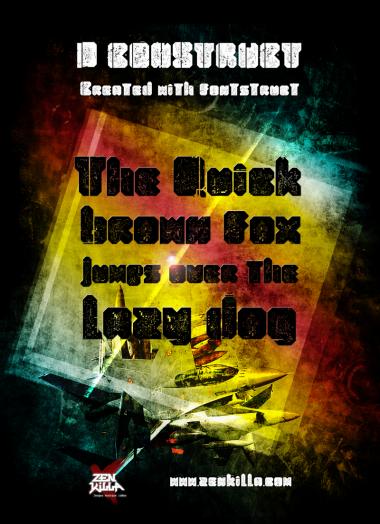
Hey there. It's been a moment that i think to create a destroy typeface with fontstruct. That's done with the Dconstruct typeface. Hope you'll like it. Zen
If I'm right, you've just published the first fontstruction in grunge style. Looks very dirty, worn, and tattered. It was only a matter of time before FS conquered this urban domain, and you are the conqueror. Nice demo pic. Congratulations. 10/10
While not being even close to the first grunge font created with fontstruct, this is impressive work nonetheless. Who cares about being “first” anyway! In my eyes, better to be unique while staying true to your heart.
The gradation you achieved – especially apparent at small sizes – has a convincing rubber stamp quality. To be honest I have little affinity for the immense and visually tiring pantheon of grunge fonts created in the wake of the whole digital revolution in typography. But to manually and successfully construct a graded texture of controlled chaos with fontstruct is a trick and a half. It’s great that you and other here find and share joy in it. : )
You might want to widen the space character for increased legibility straight out of the box.
thanks you very much for those comments. In facts it's taking time to create the chaos in the typeface and to make it different for each letter. But i'm glad of the result.
a great technical achievement and work of art. fascinating to look at pixel size. looks almost stamped or something. i would also say more for the character space - try a little less than one of your lc glyphs - the text right now kind of runs together. but this is outstanding :)
The 'lazy dog' will have to watch out for the urban fox :)
Ps : i've create the number and some special letter right now :)
It keeps a nice modular feeling but still takes advantage of a big scale to create a nice digital noise. Me gusta.